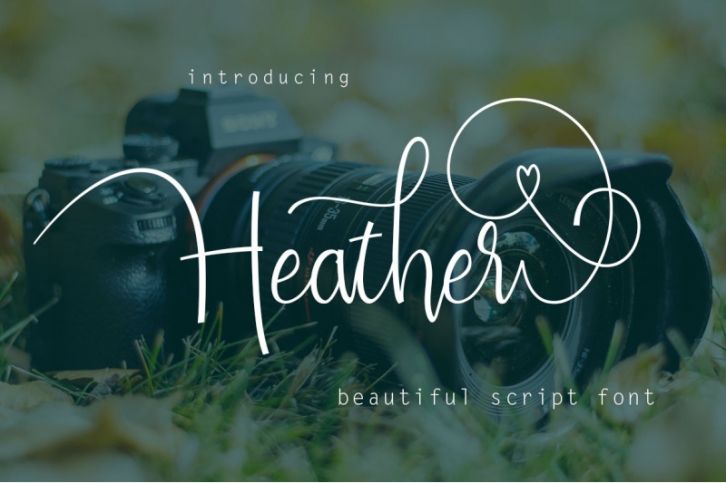
Heather FONT Download
Heather Modern Calligraphy. This font was designed by handwriting, and it has a modern and unique forms of calligraphy, the writing style is very natural.